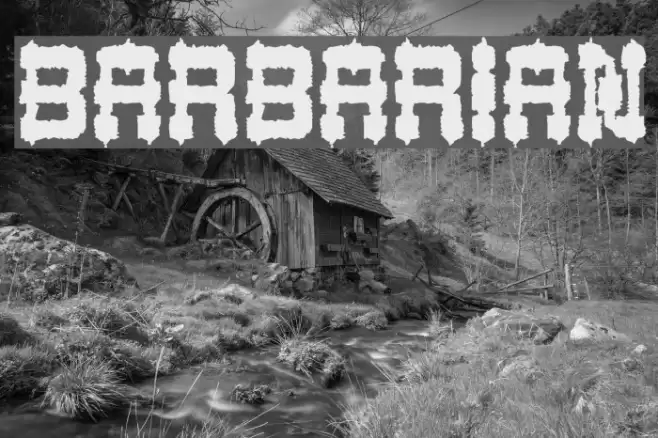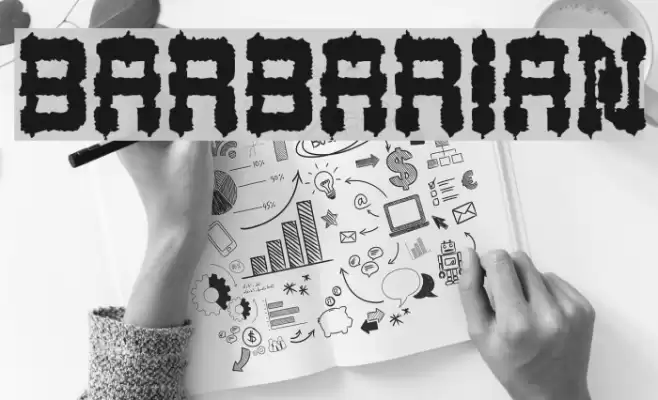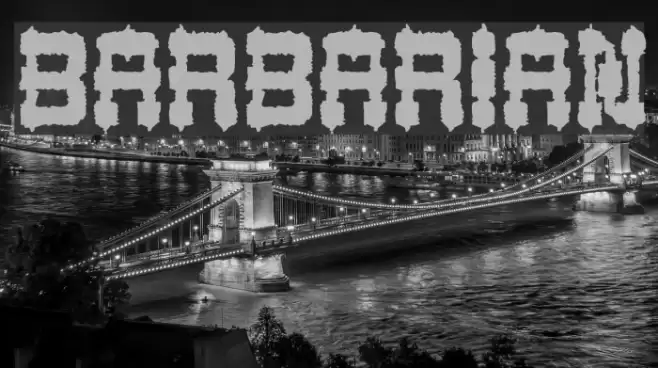
BARBARIAN Font
BARBARIAN Description
This font features a rugged and bold design, characterized by its jagged, uneven edges that give it a raw and primal appearance. The letters are uniformly bold, with a consistent thickness throughout, creating a strong visual impact. The style is reminiscent of ancient or tribal aesthetics, making it ideal for projects that require a touch of the primitive or untamed. The uppercase and lowercase letters maintain a consistent style, with the uppercase being slightly larger and more pronounced. The numbers and special characters follow the same design principles, ensuring a cohesive look across all text elements.
A bold, rugged font with jagged edges, perfect for primitive or tribal-themed designs from Uncategorized fonts.
- Proposed Projects: Ideal for use in video game titles, movie posters, or any design requiring a primitive, rugged aesthetic.